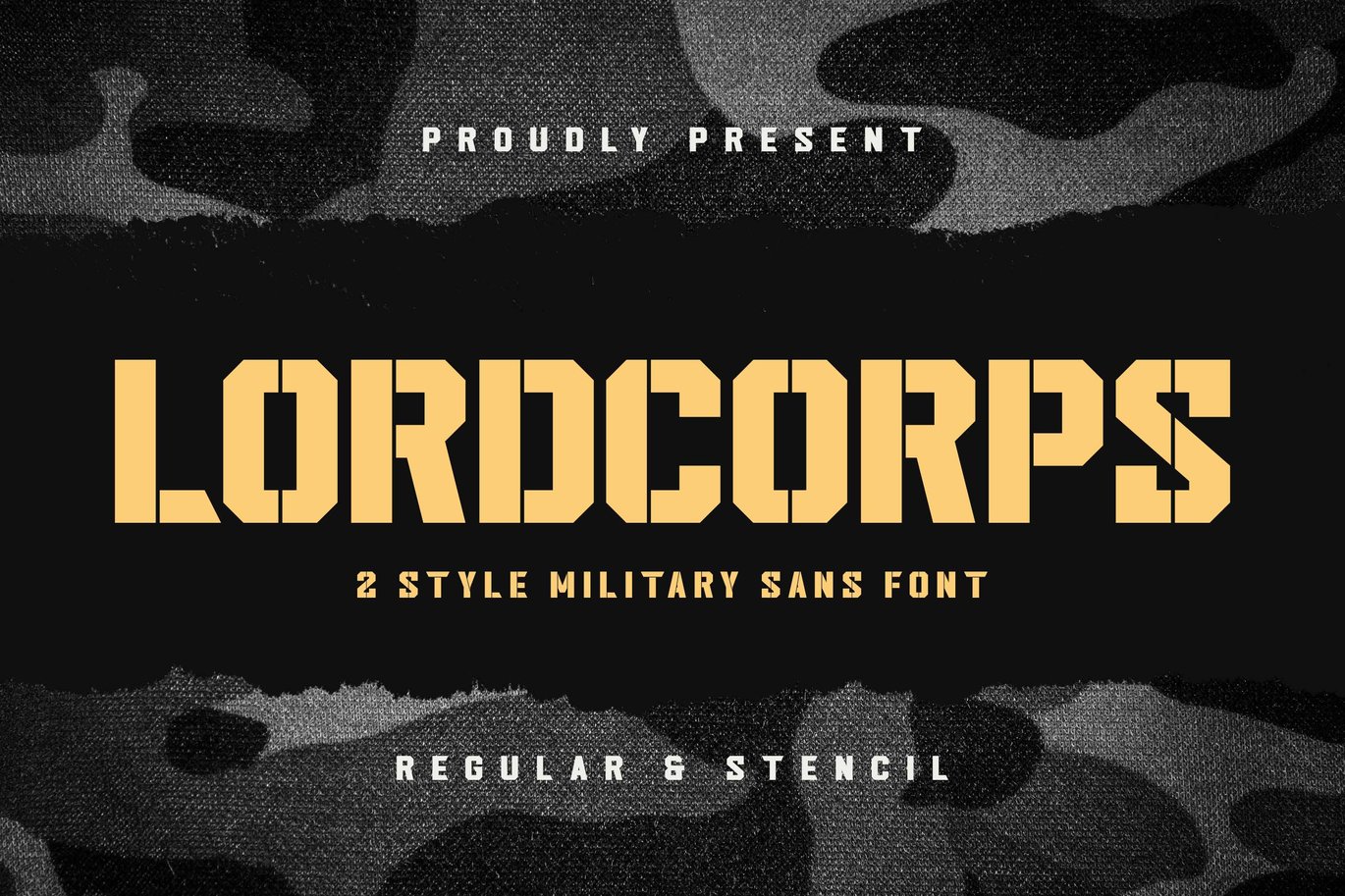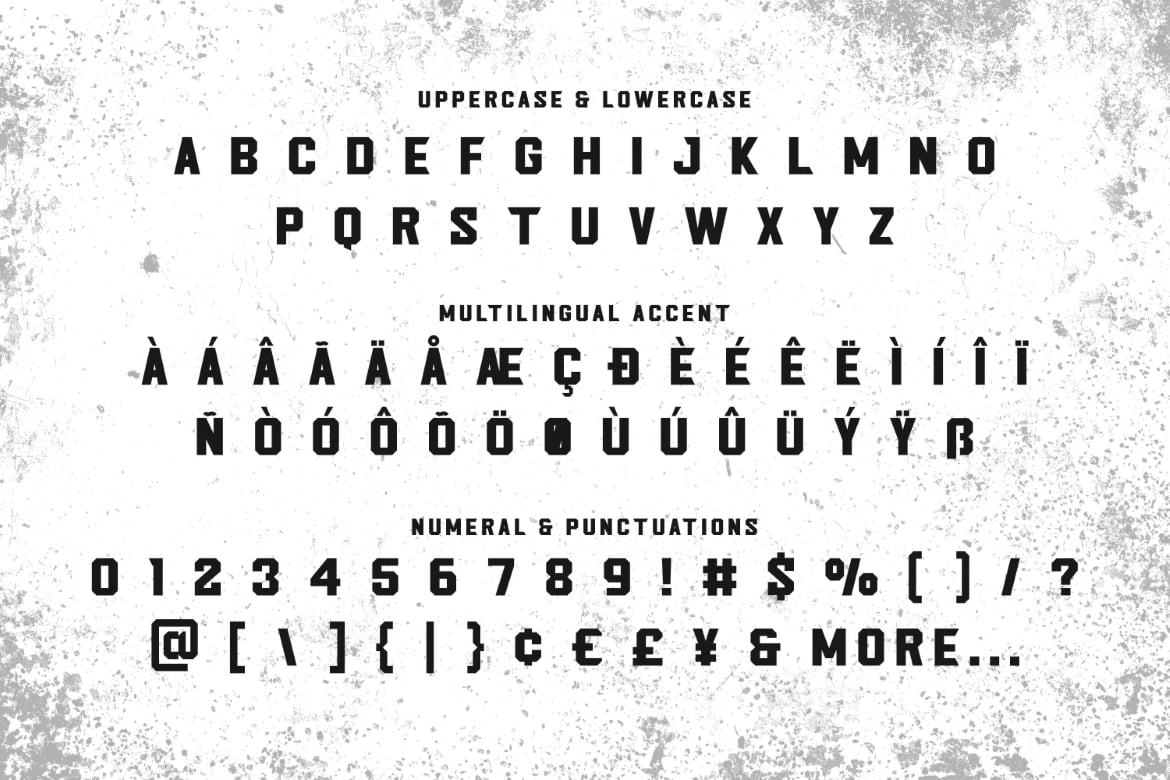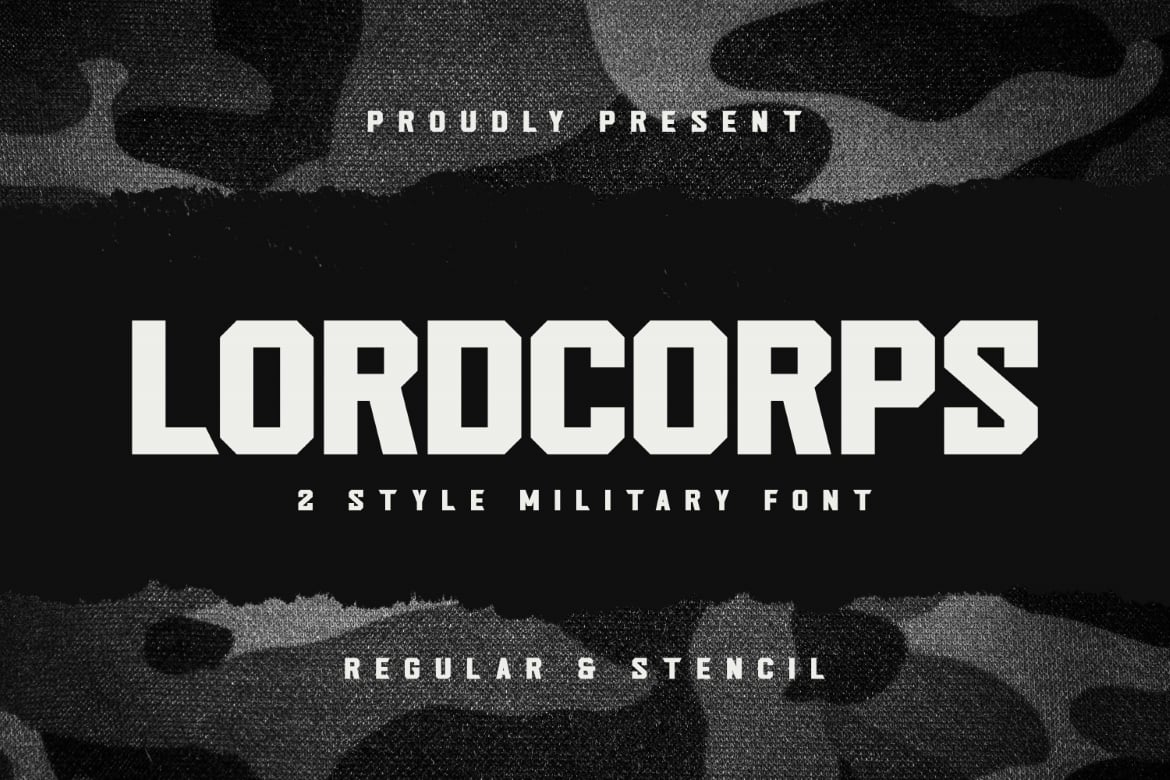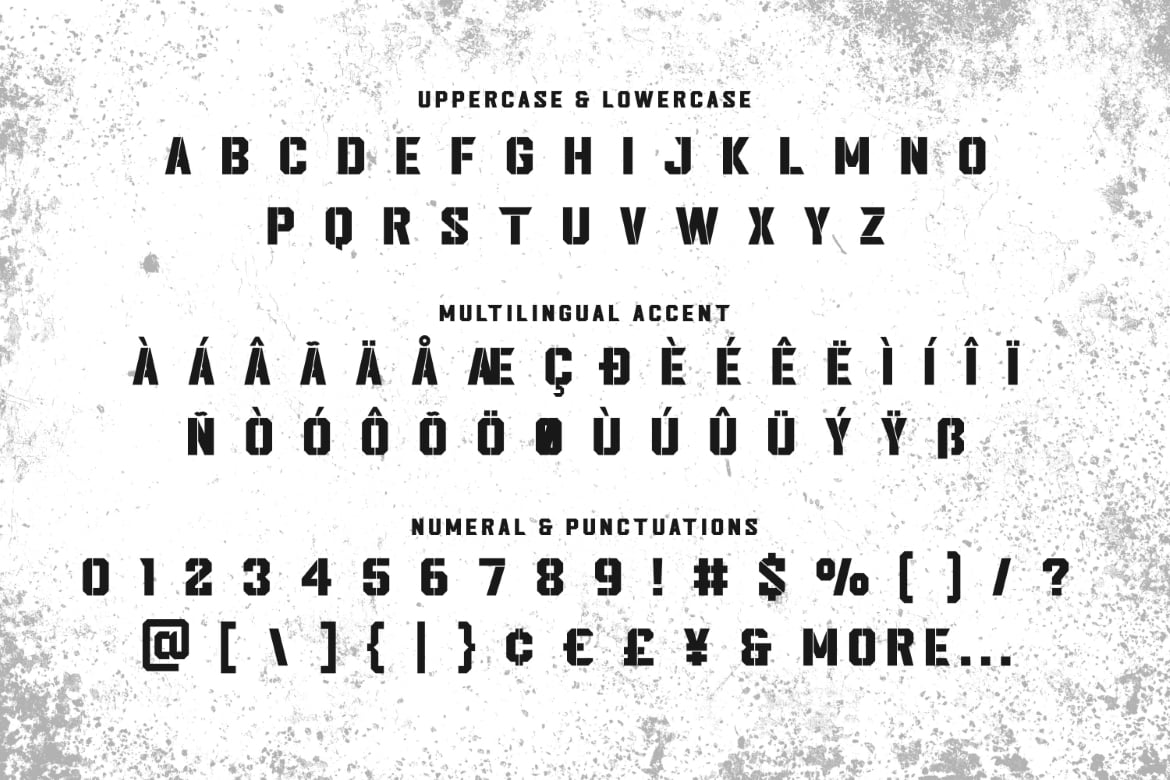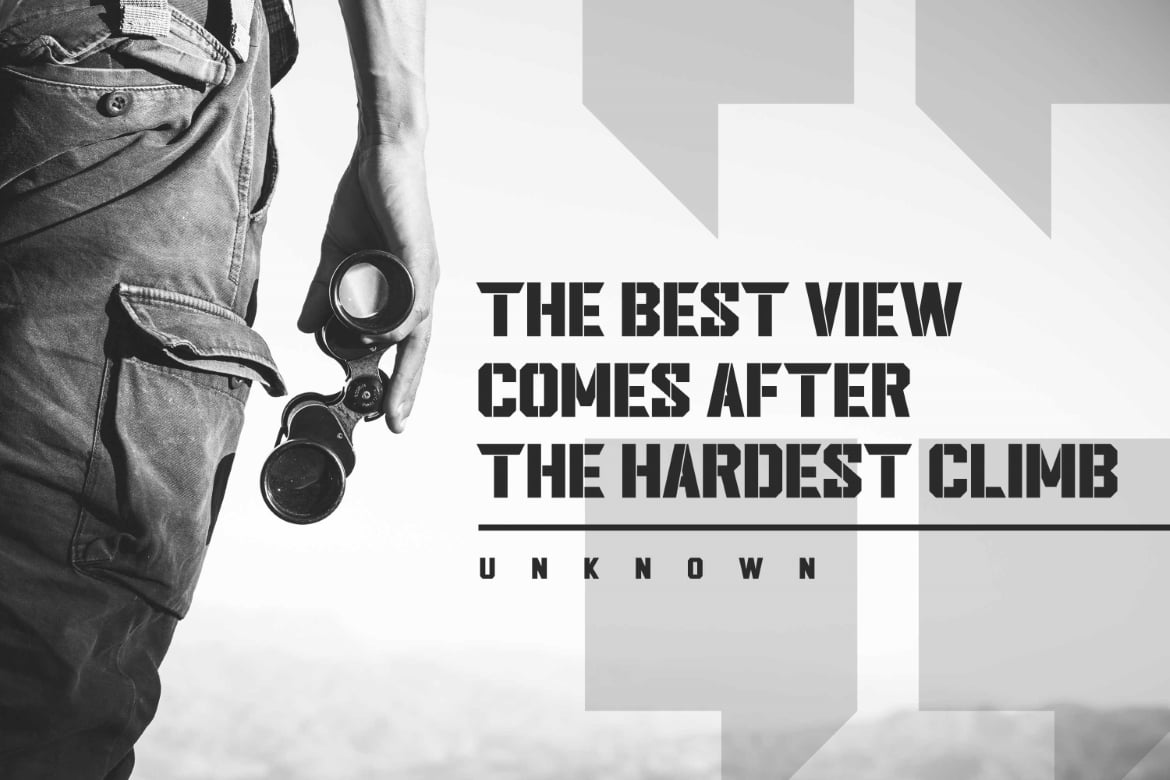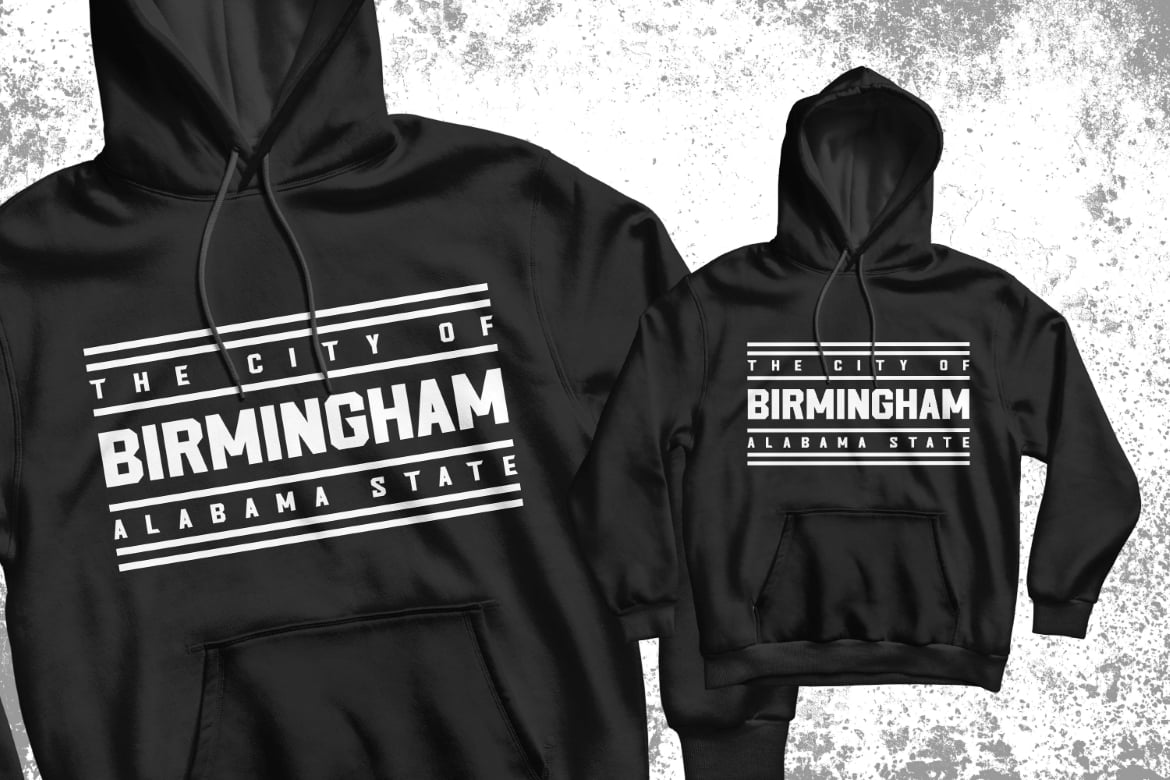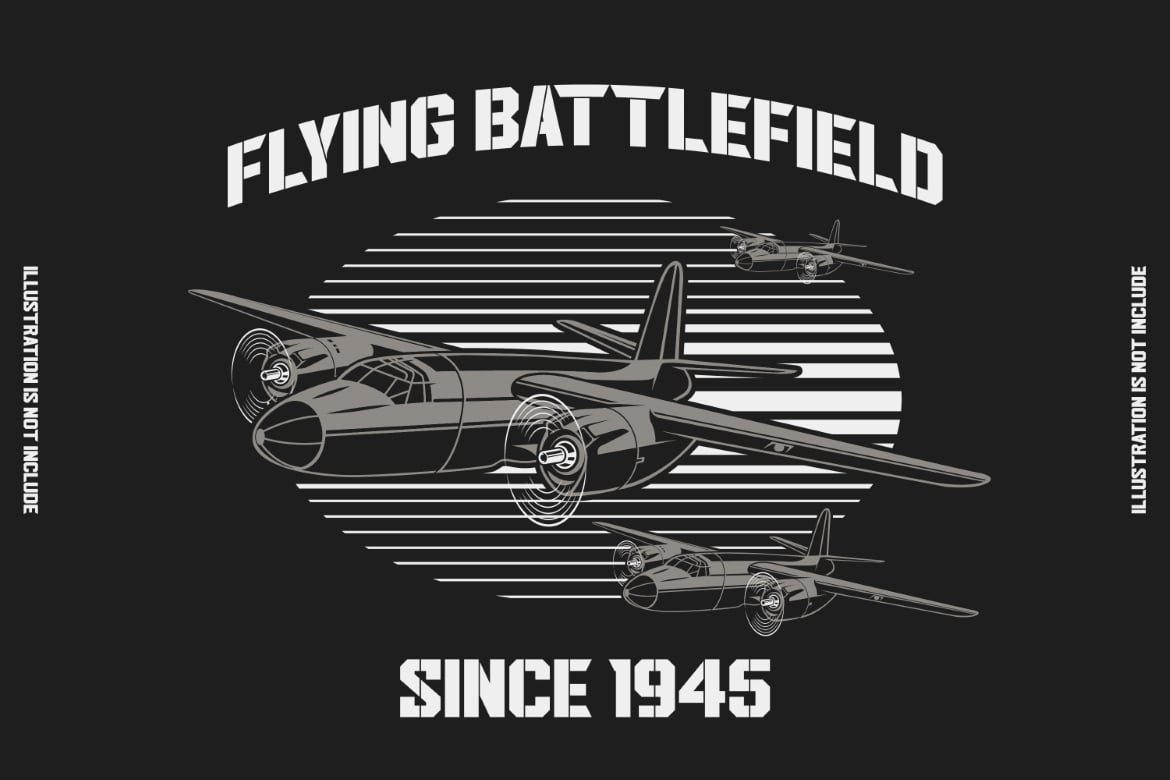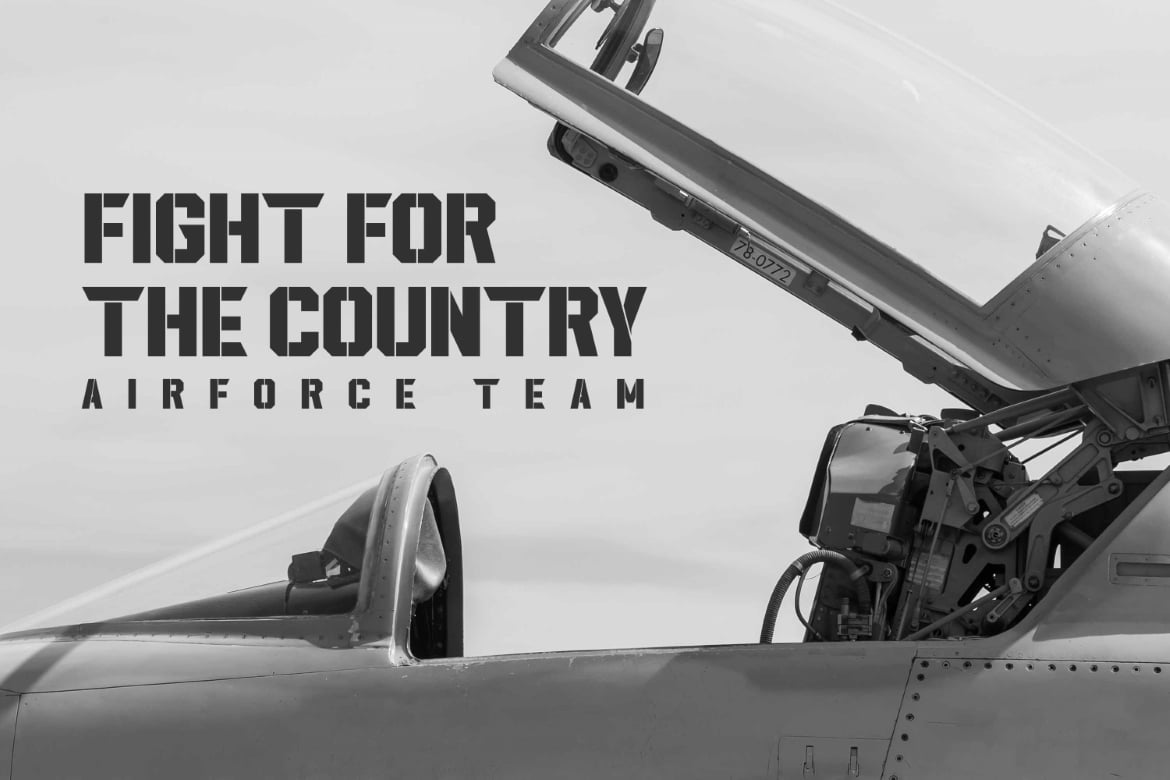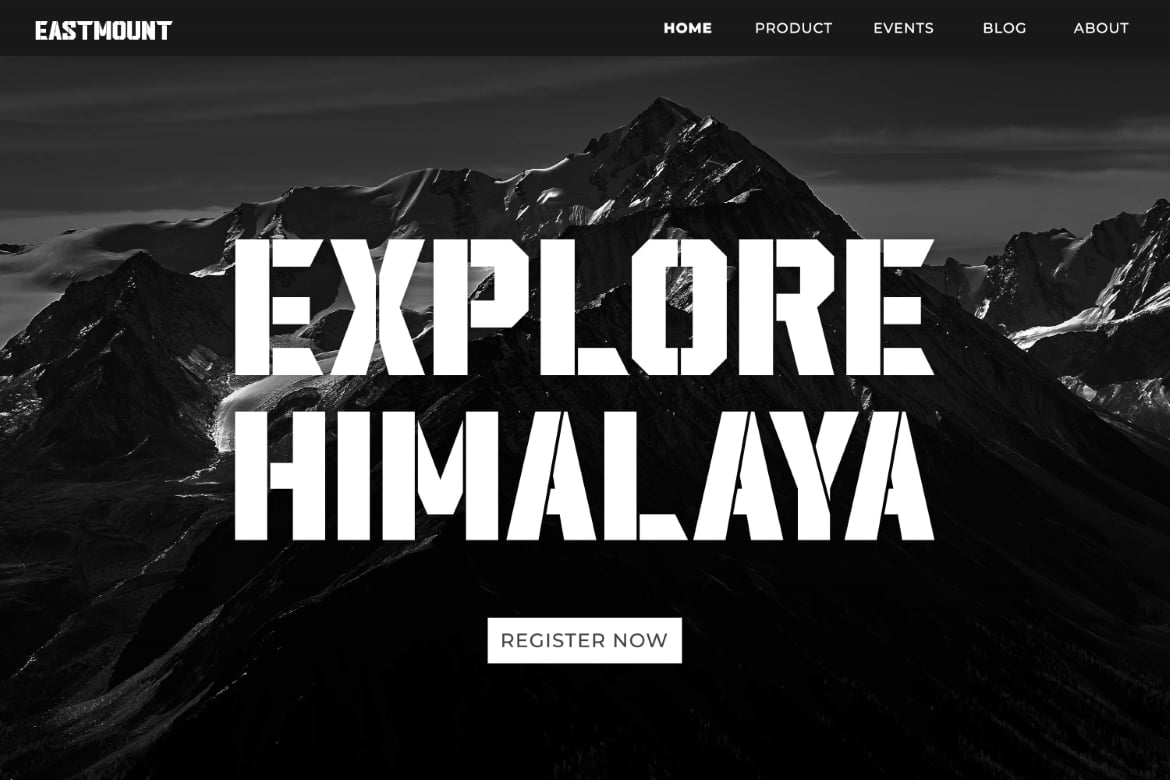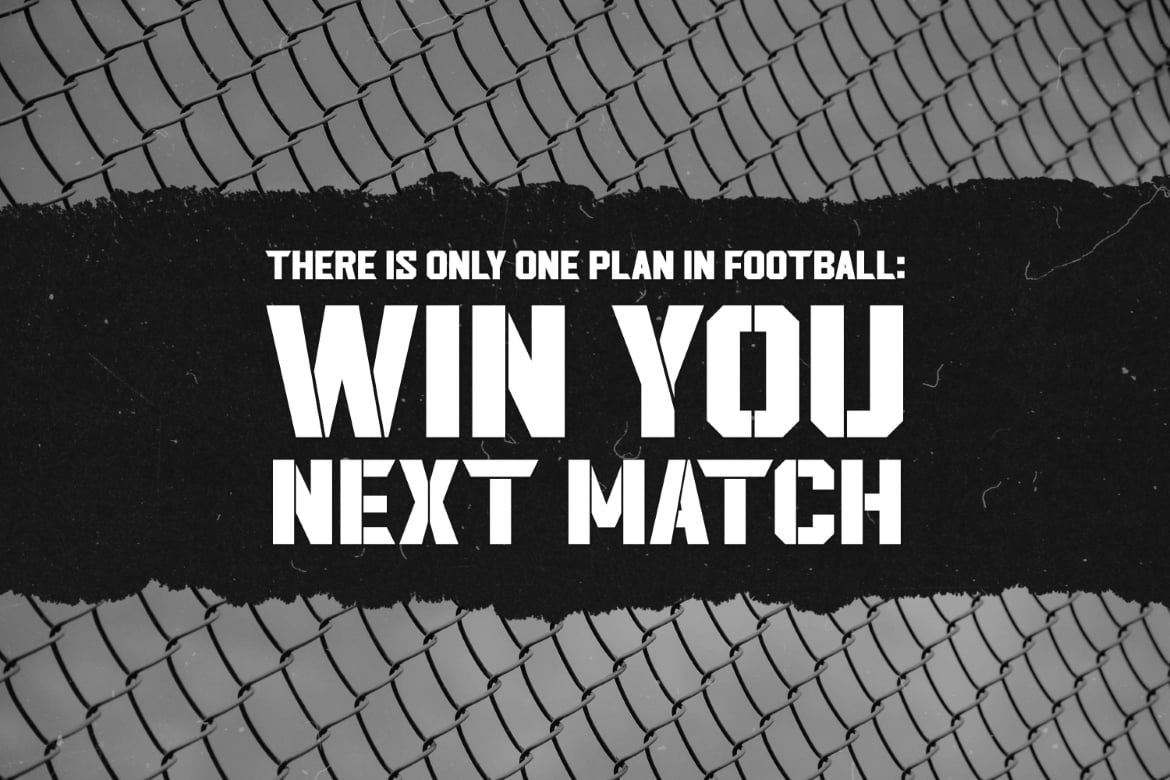
Lordcorps – Military Sans Font
Lordcorps is a Sans military style font, first conceptualize was inspired by the classic vintage military stencil design .
I wanted a typeface that could be a solid base for any military inspired project Lordcorps Fonts can be used for wallpaper, pattern fills, web page background, surface textures. Perfect for making army posters , scrapbooking,invitation cards, label stickers, stationary, gift wrap, packaging, clothes, buttons, pendants, holiday gifts, print on fabrics and so much more
- Multilingual Accent